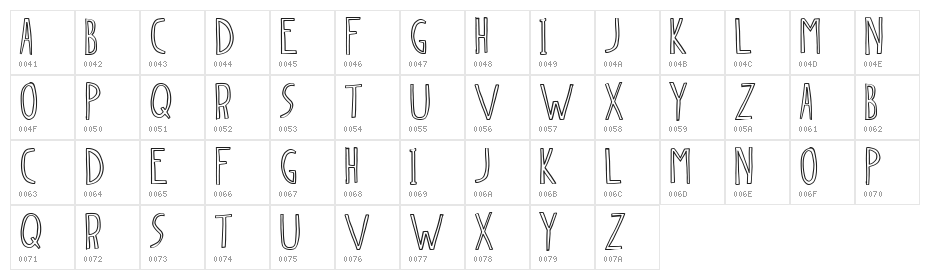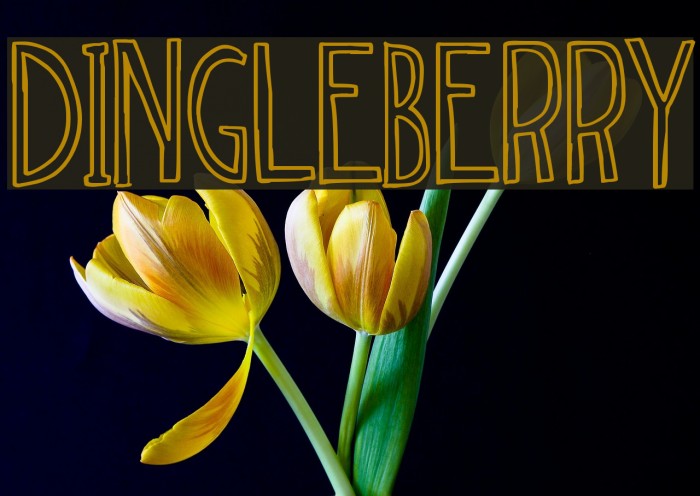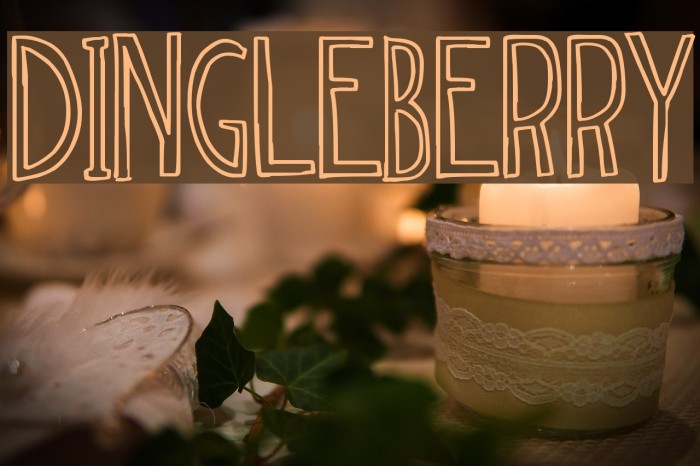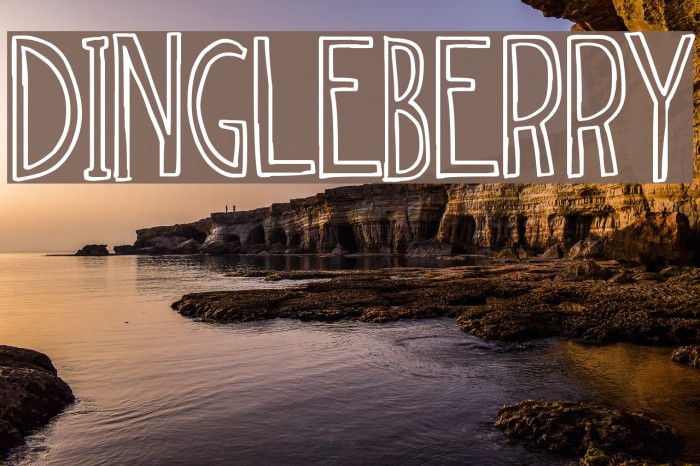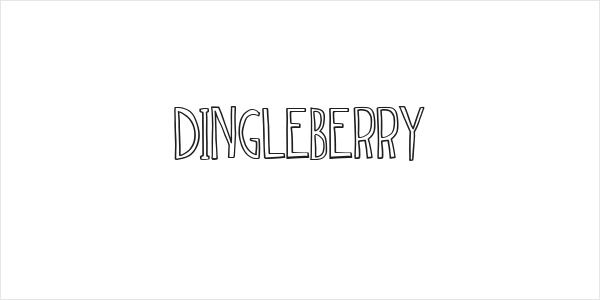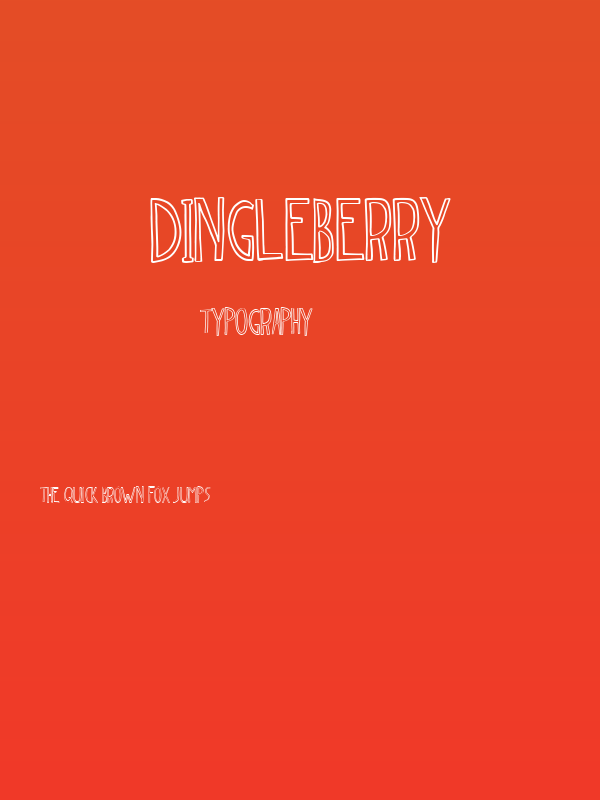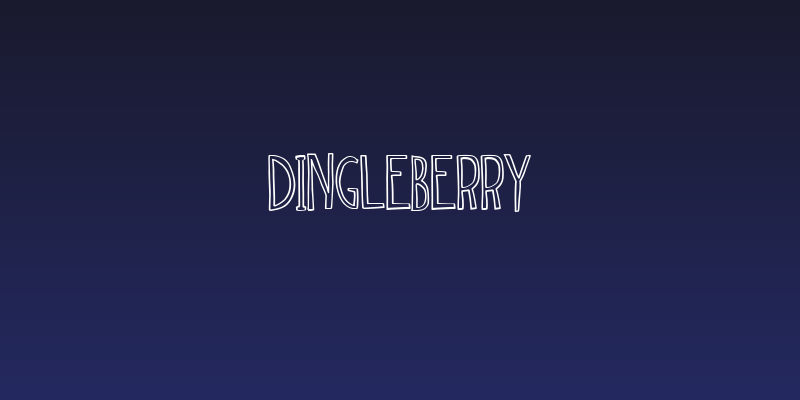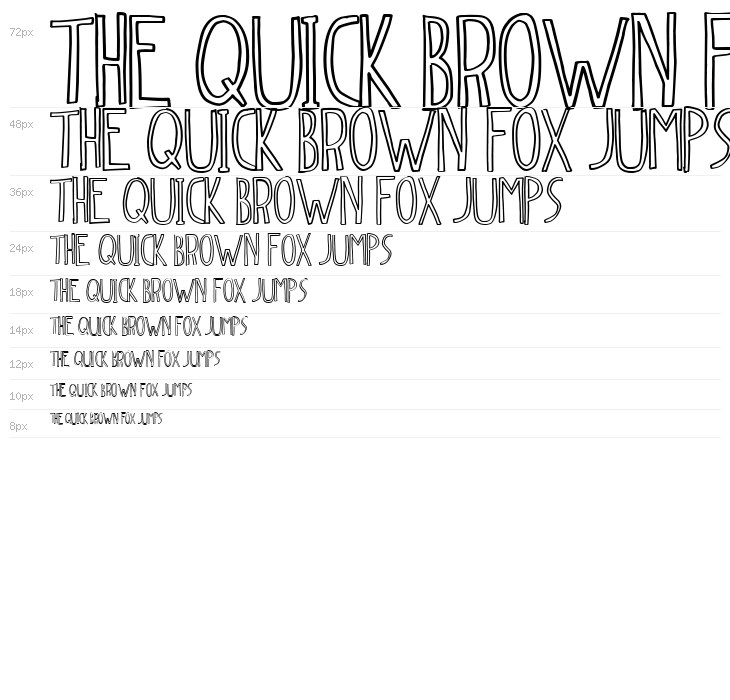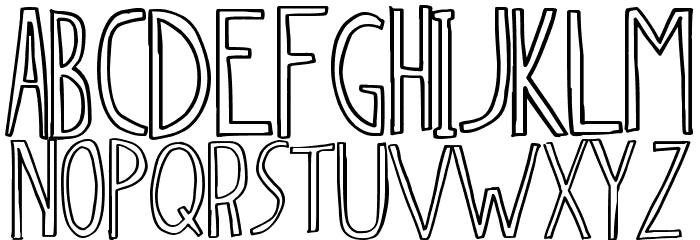
dingleberry Font
dingleberry Description
This font features a playful and quirky design with a hand-drawn aesthetic. The characters are tall and narrow, with uneven strokes that give it a whimsical and informal appearance. The lines are slightly wavy, adding to its casual charm. The uppercase letters maintain a consistent height, while the lowercase letters are slightly shorter, preserving readability. The font's unique style makes it stand out, with each letter having its own distinct personality. It is ideal for projects that require a fun and engaging look, such as children's books, creative posters, or playful branding. The font's irregularities and artistic flair make it a great choice for designs that aim to capture attention and convey a sense of creativity and individuality.
A playful, hand-drawn font with tall, narrow characters and a whimsical style from Cartoon fonts.
- Proposed Projects: Children's books, creative posters, playful branding, artistic invitations.